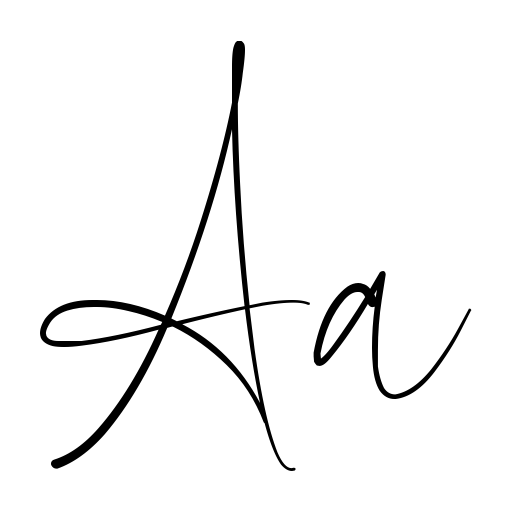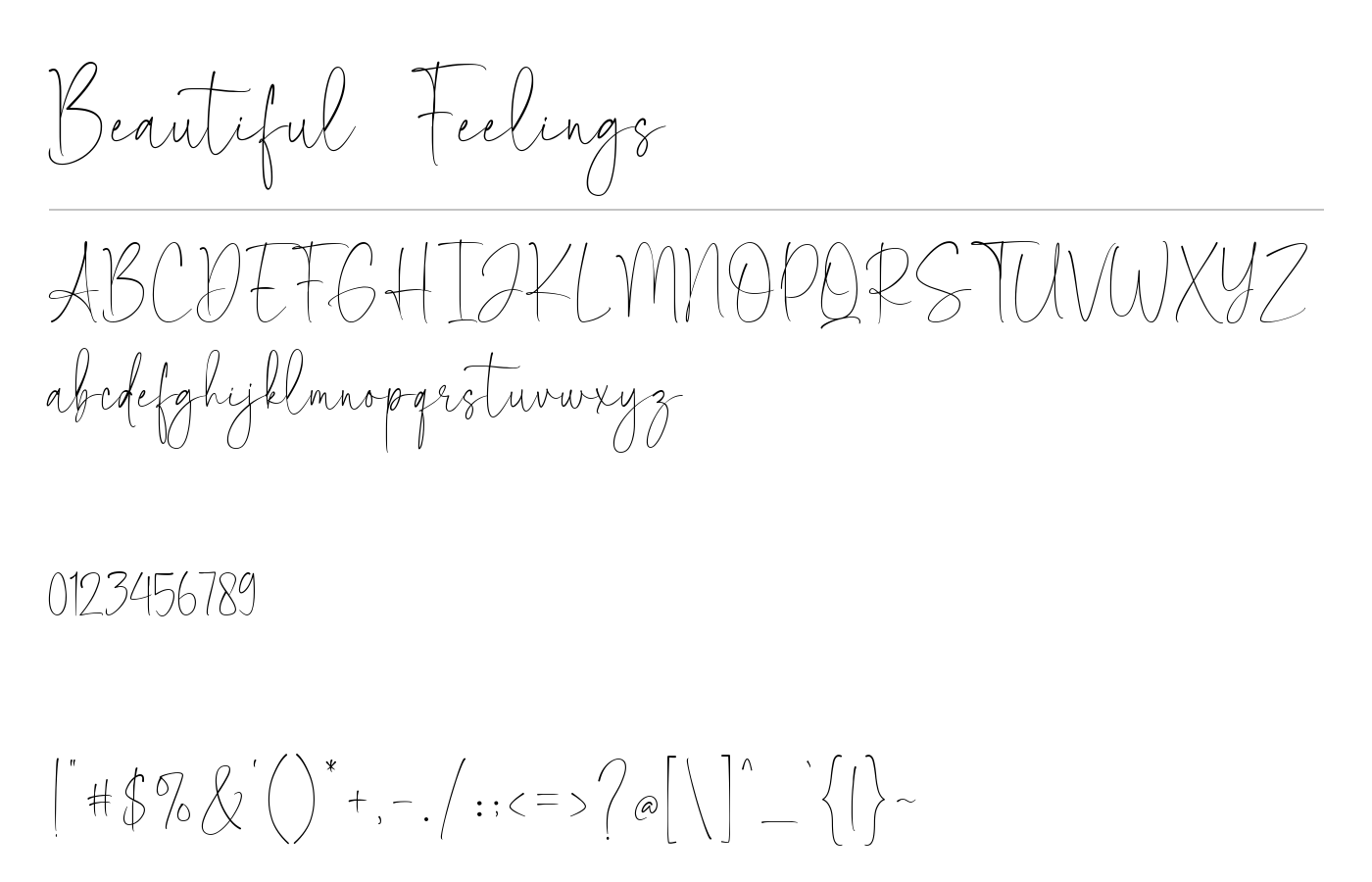
Beautiful Feelings is a delicate, handwritten script font with a light, airy feel and slender strokes that evoke elegance and warmth. Its tall, narrow letterforms with whimsical curves and subtle flourishes make it ideal for adding a personal, romantic touch to invitations, branding, and stylish editorial designs. This font works beautifully for projects seeking a modern yet intimate look that feels both unique and approachable.
Beautiful Feelings Font
About Beautiful Feelings Font